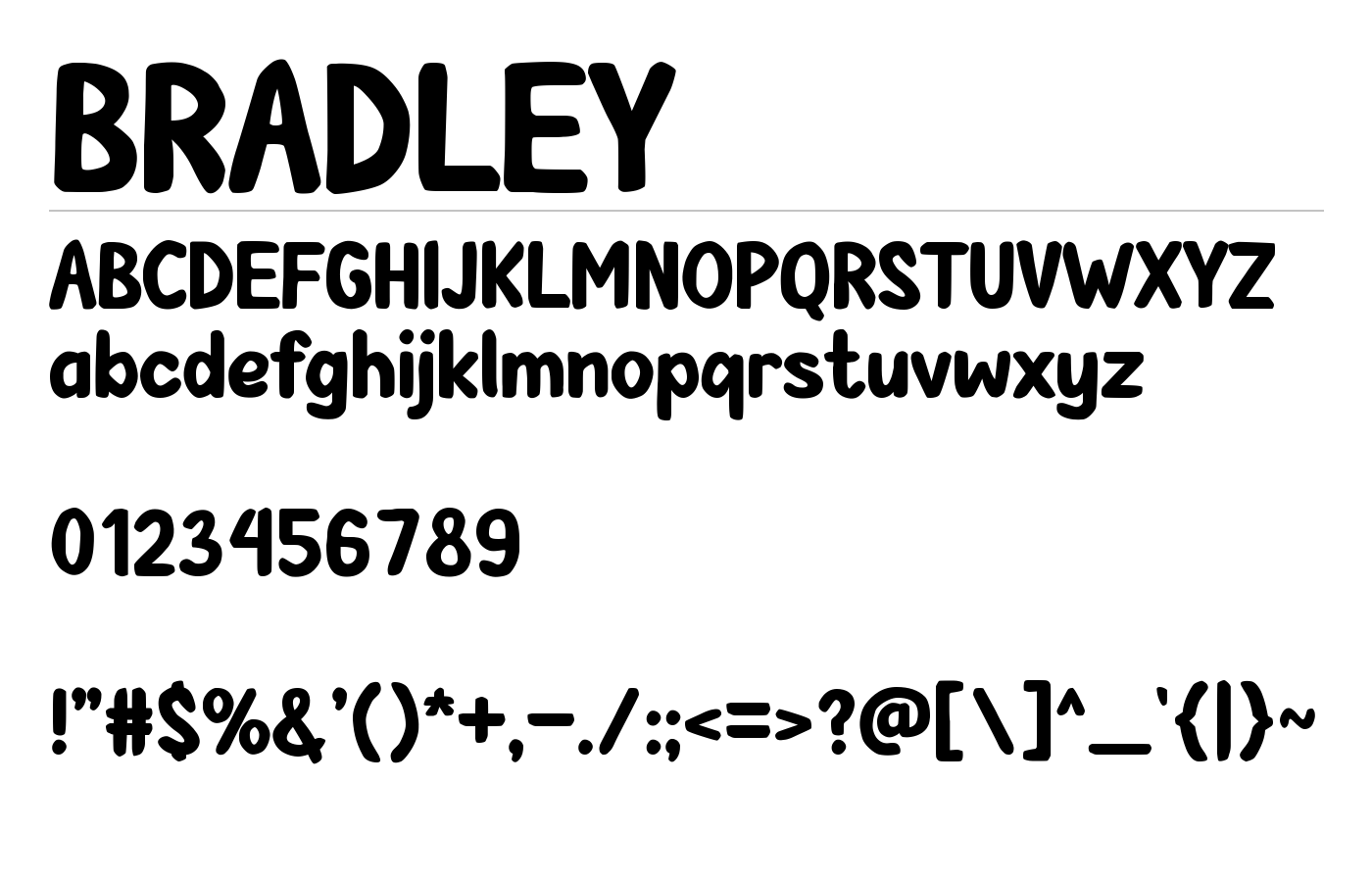
Bradley is a playful and friendly sans serif font with a hand-drawn, slightly irregular style that gives it a casual and approachable feel. Its rounded shapes, noticeable stroke contrast, and informal letterforms make it ideal for creative, fun branding, children's materials, and informal headlines where warmth and personality are desired. This font works best in display use, adding a distinctive, charming touch to logos, posters, and packaging aimed at a lighthearted or youthful audience.
BRADLEY Font